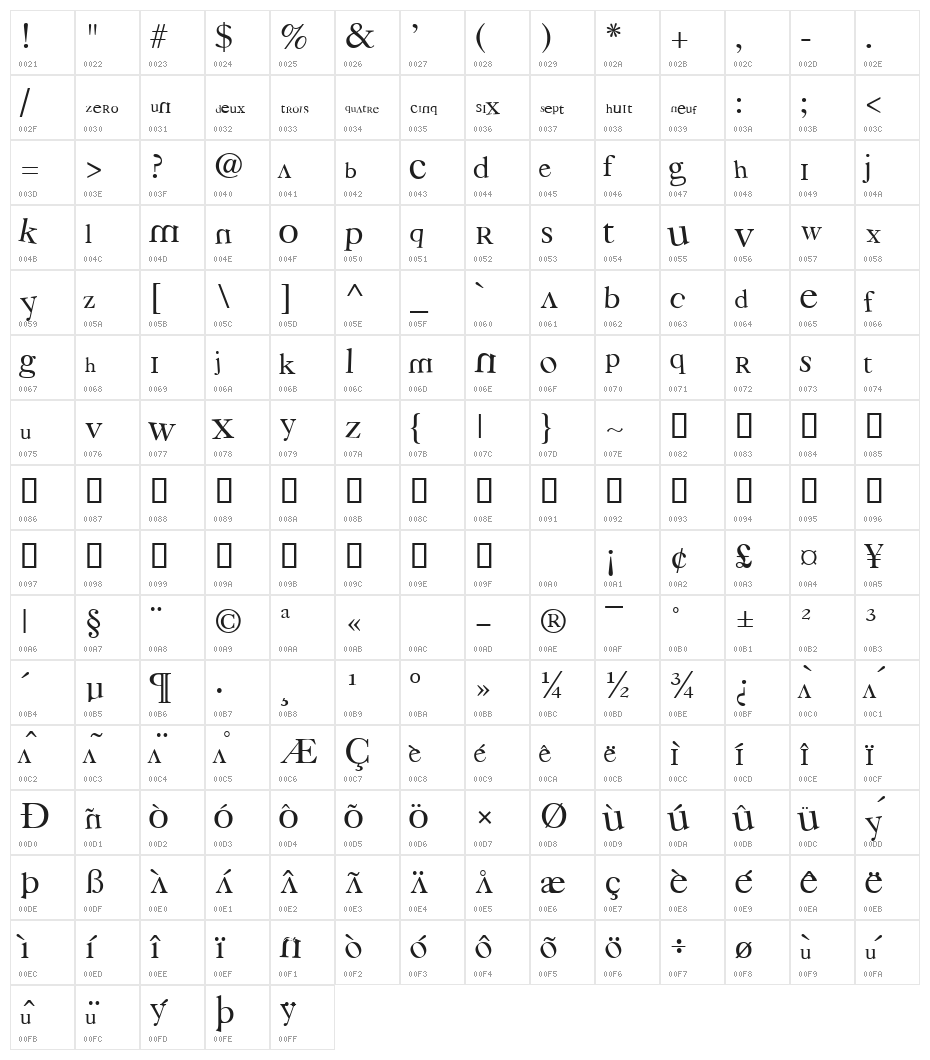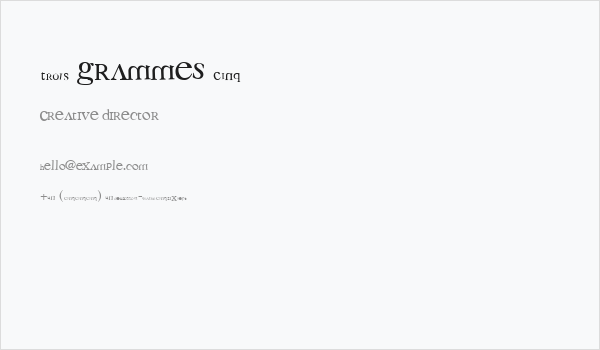
3 grammes 5 Font
3 grammes 5 Description
This font exhibits a unique blend of modern and classic styles, characterized by its distinct, slightly whimsical serifs and varying stroke widths. The uppercase letters are bold and commanding, with a playful tilt in some characters that adds a dynamic feel. The lowercase letters maintain a consistent style, with rounded forms and a slight slant that enhances readability. The numerals are elegantly designed, complementing the overall aesthetic. Special characters are crafted with attention to detail, ensuring they integrate seamlessly with the alphabet. This font's versatility makes it suitable for a variety of design projects.
| Use Case | Headlines, Logos, Editorial Design |
| Proposed Projects | Ideal for branding, editorial design, and creative projects that require a touch of elegance and playfulness. |